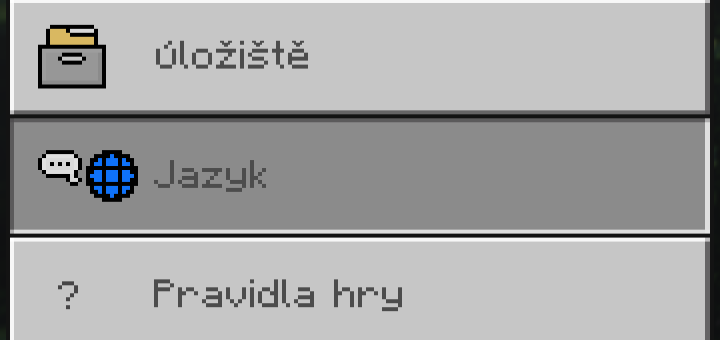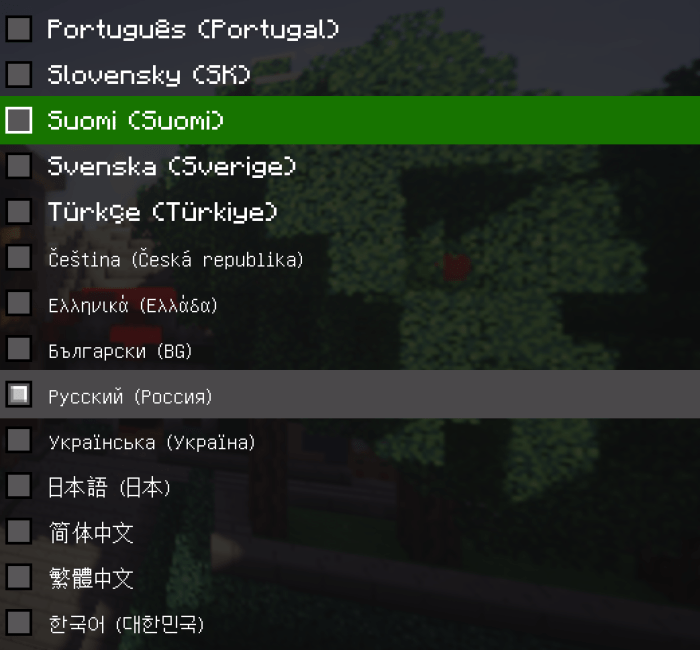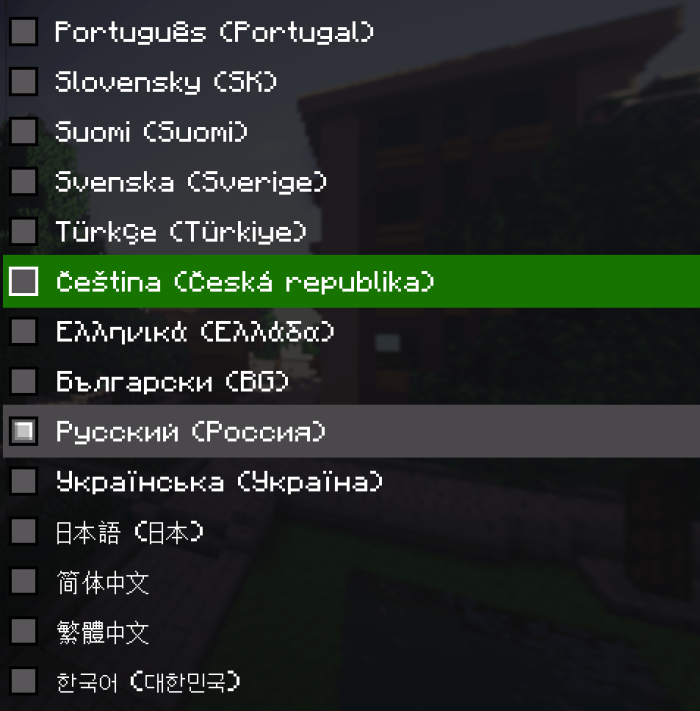
Many players are tired of the stupid thin font that does not convey the aesthetics of Minecraft.  Are you one of them? Then this resource pack is for you, it replaces the font of some languages with a more advanced one.
Font fixer is a simple resource pack, which changes your font to better one
Here’s a before/after screenshots
Before
After